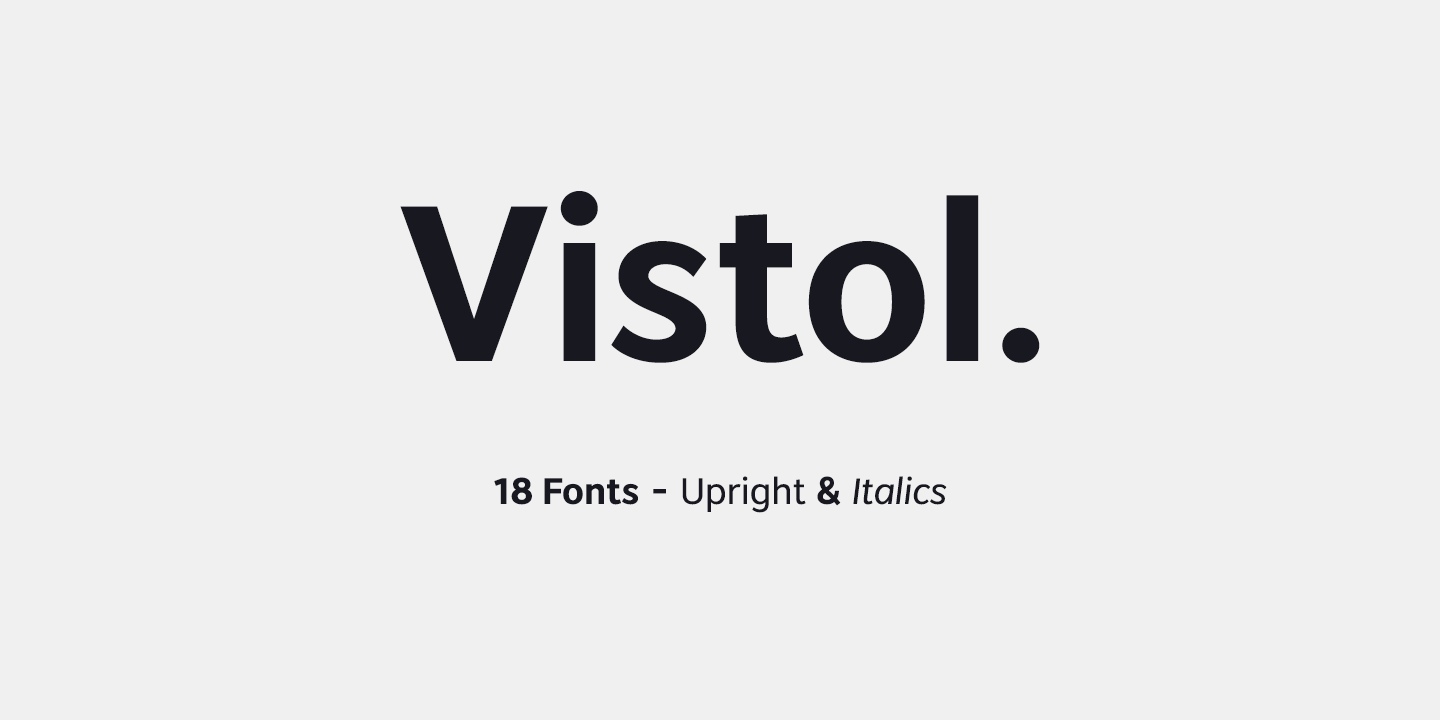
Vistol Sans Latin Pro Font
Vistol Sans Latin Pro Font excels in multilingual corporate communications, international business presentations, global brand identity systems, Latin American market campaigns, professional translation services, international law firm materials, diplomatic institution documents, cross-cultural marketing initiatives, global education platforms, and multinational organization branding. This professional typeface brings international clarity and Latin linguistic excellence to any global communication project.
Vistol Sans Latin Pro Font is exciting because it embodies the precision and cultural sophistication required for effective international communication, featuring systematically designed letterforms that provide comprehensive Latin character support while maintaining exceptional readability across diverse languages and cultures. Its professional character instantly conveys global competence, linguistic accuracy, and the international expertise essential for successful cross-border business communications.
Vistol Sans Latin Pro Font family includes comprehensive weight range from Thin to Black with matching italics, plus extensive Latin character sets, diacritical mark support, and international typographic features that enhance the global aesthetic, providing international designers with complete typographic solutions for multilingual professional applications and cross-cultural communication requirements.
International communication designers appreciate Vistol Sans Latin Pro Font for its exceptional clarity in multilingual documents and its ability to maintain brand consistency across diverse Latin-based language markets. The font's professional construction and comprehensive character support ensure optimal communication effectiveness in international business environments where linguistic precision and cultural sensitivity are essential for successful global operations.
The technical excellence of Vistol Sans Latin Pro Font includes advanced OpenType features, extensive diacritical support, and meticulous spacing optimization for Latin-based languages, making it particularly effective for multinational corporations, international institutions, and global communication agencies that require reliable typography for professional multilingual communications. International teams working on Latin market projects find this font essential.
Whether used for global corporate communications, international legal documents, or Latin American marketing campaigns, Vistol Sans Latin Pro Font delivers the perfect synthesis of professional excellence and international functionality. Its global appeal and Latin linguistic expertise make it an indispensable choice for organizations that conduct business across Latin-based language markets and require typography that reflects international professionalism and cultural competence.